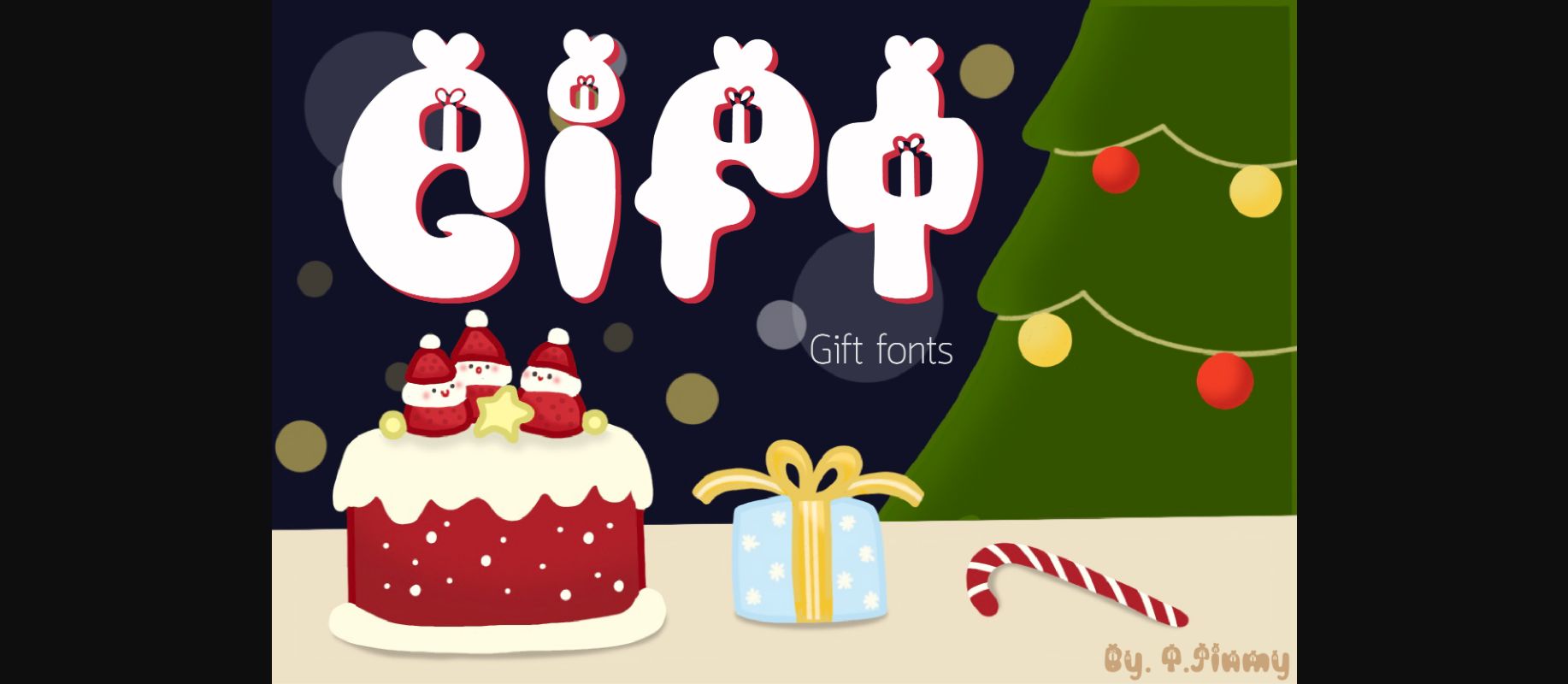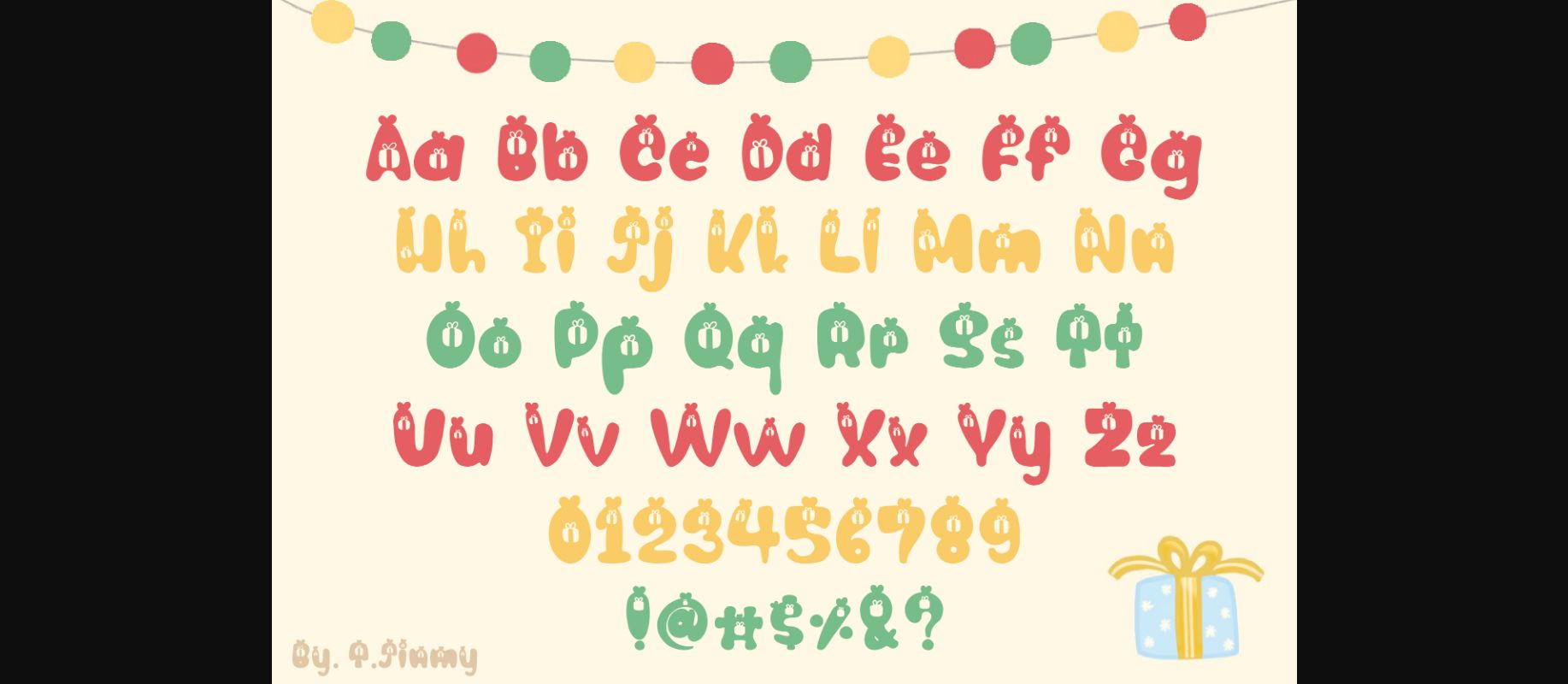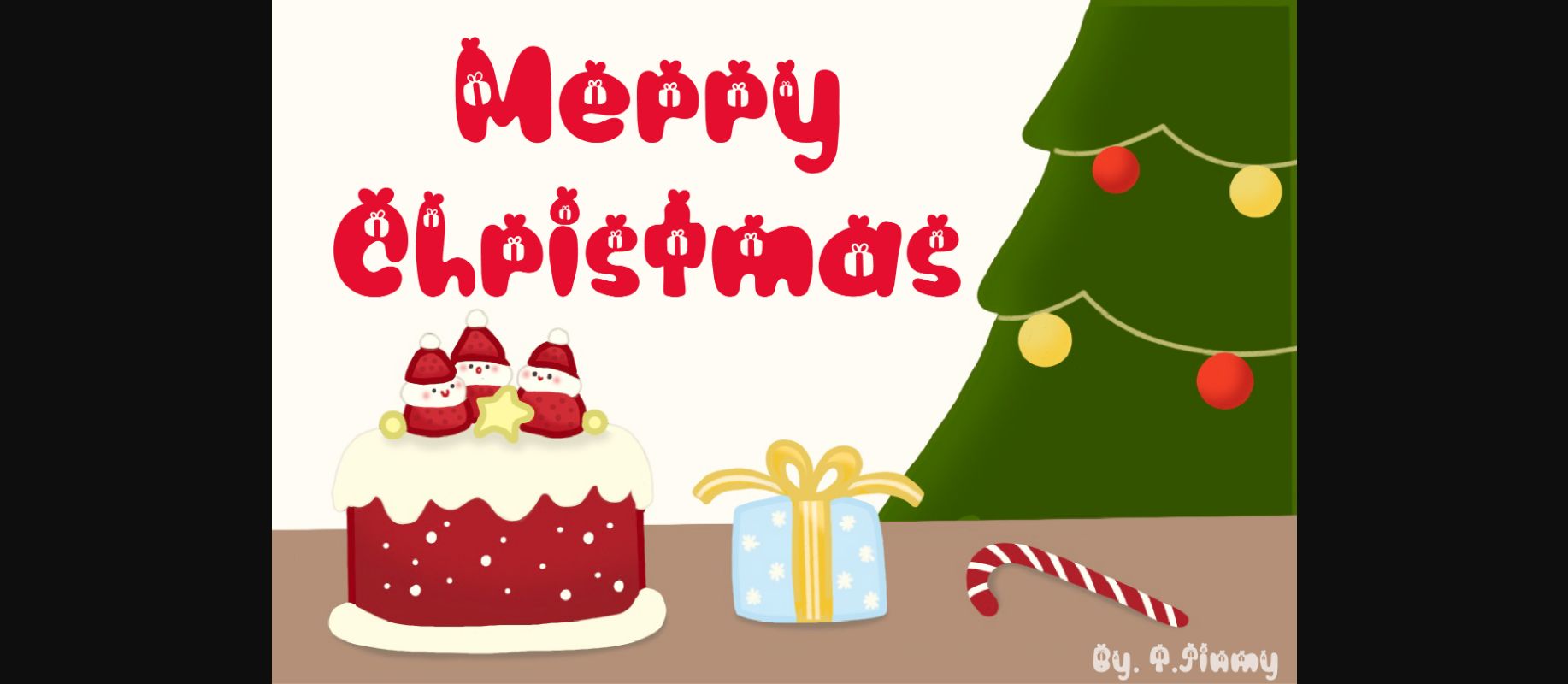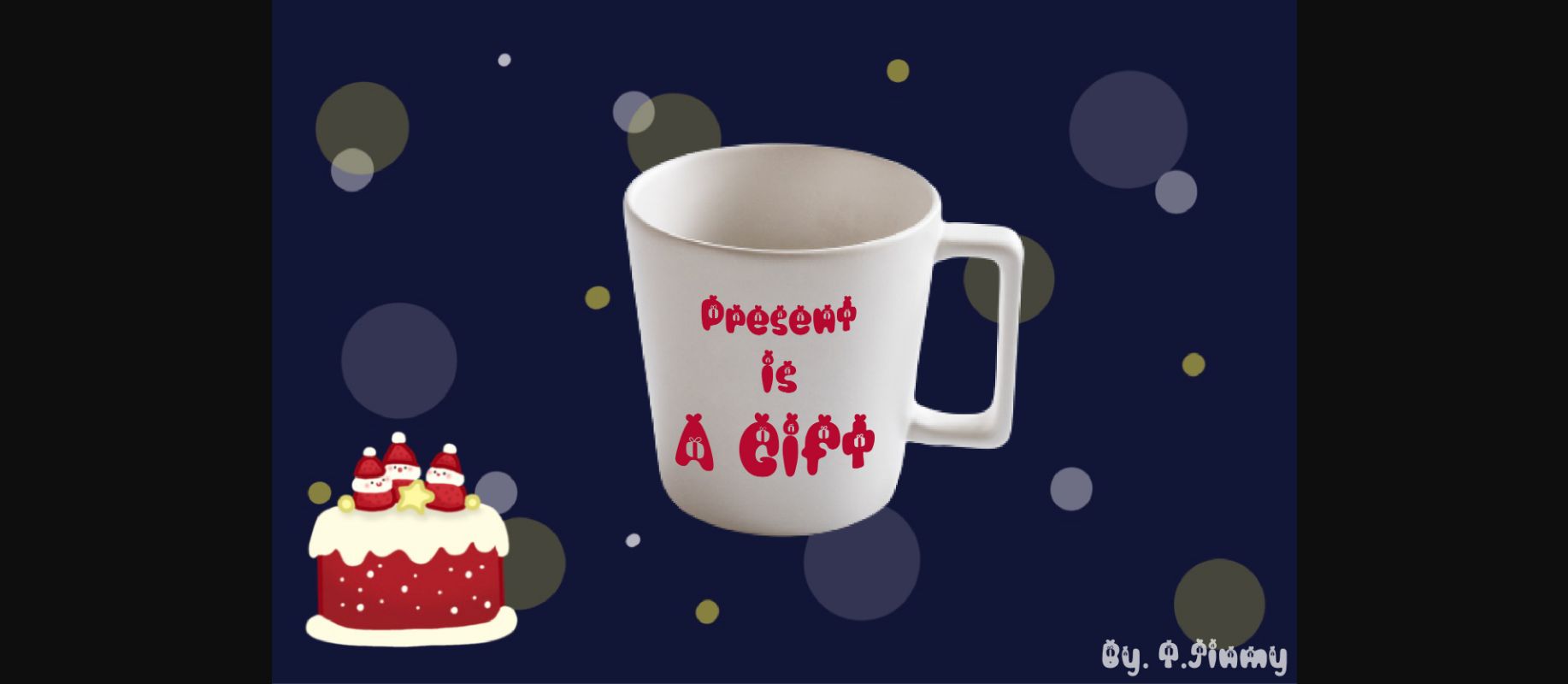
Gift Font
About Gift Font
Gift is a cute decorative font. It is the perfect fit for all of your logos, branding, social media, crafty DIY projects, and much more!